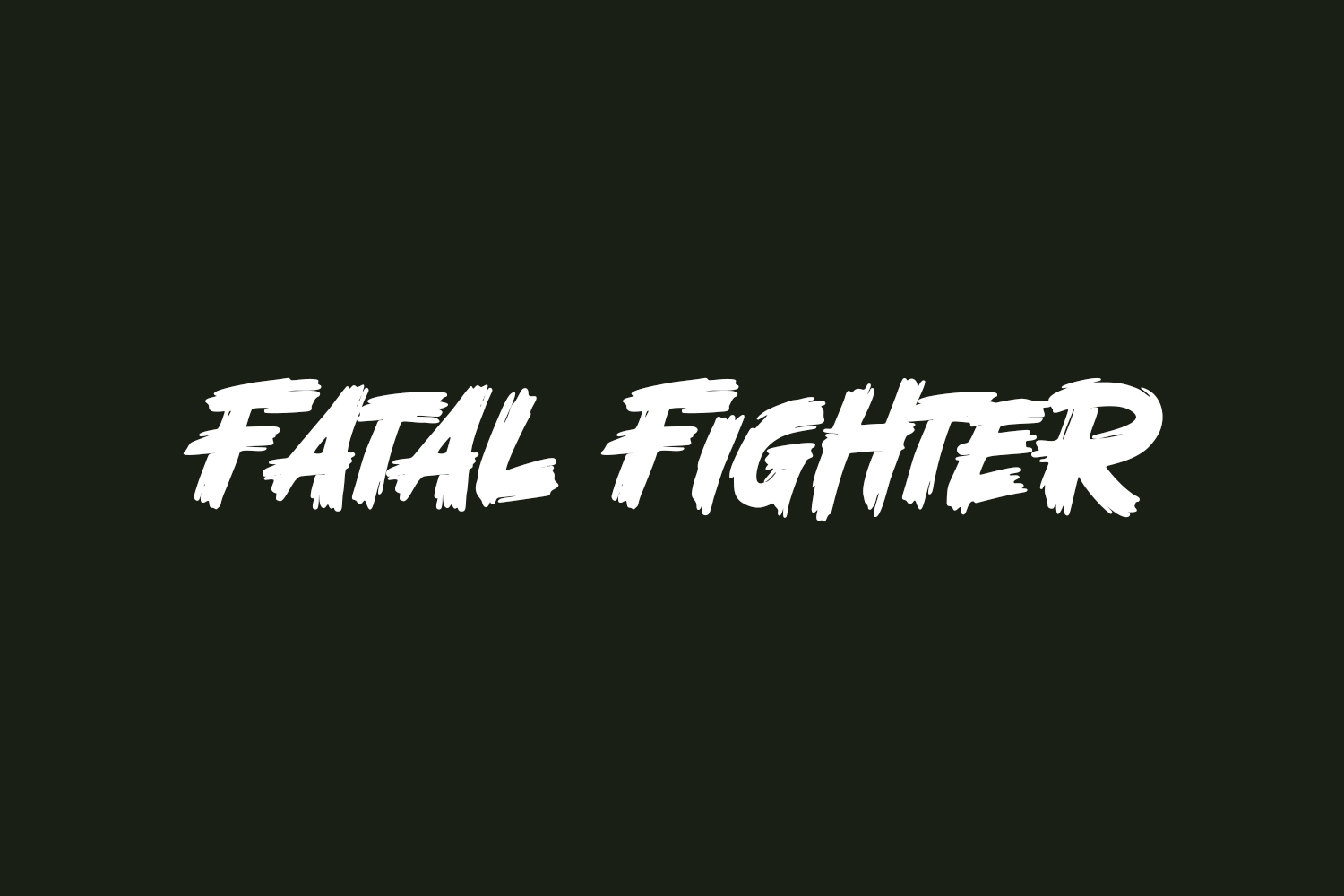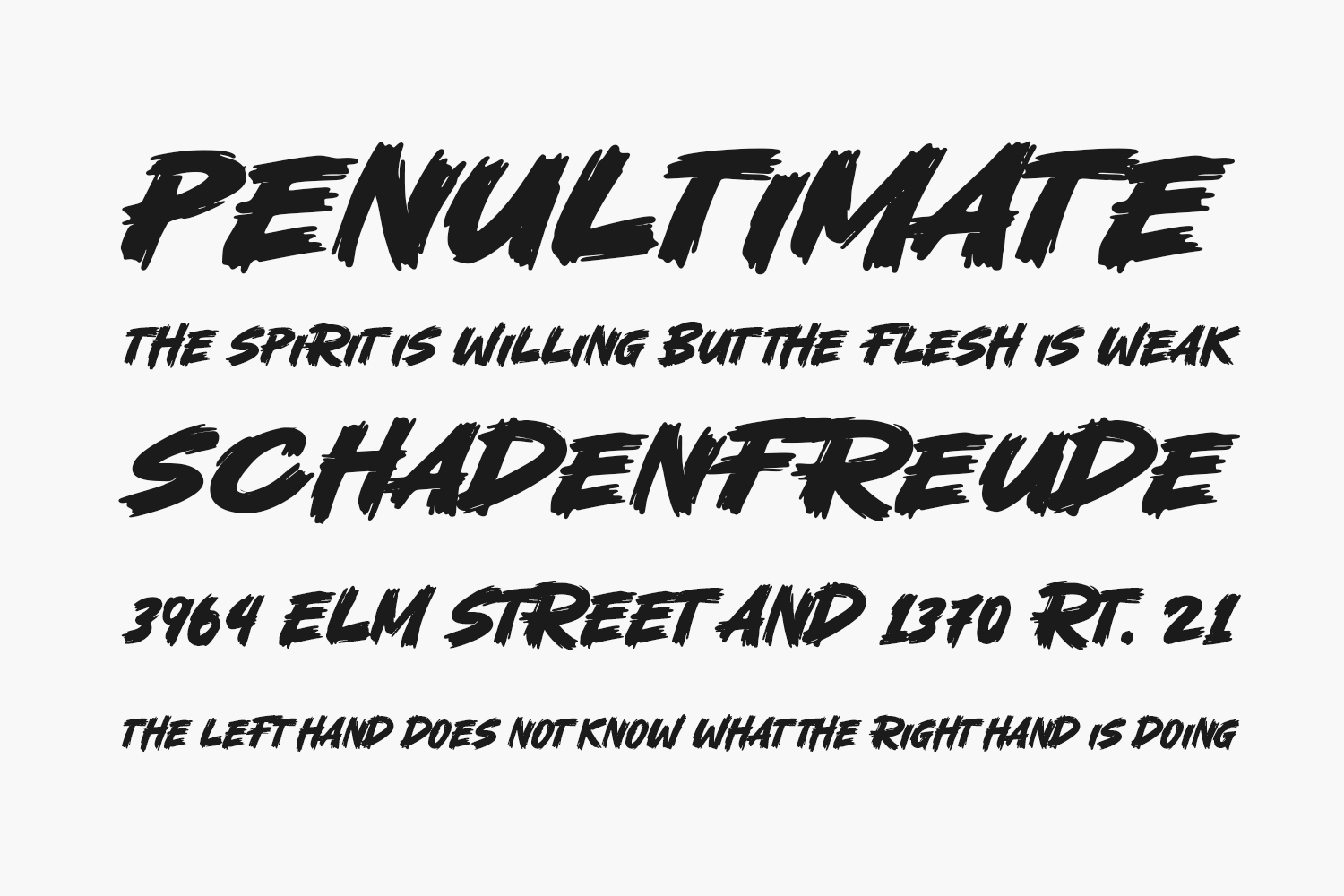
Fatal Fighter Free Font is a contemporary and dynamic brush font ideal for a variety of design projects, including posters, logos, magazines, book covers, banners, and more! Acquire this unique handwritten font to enhance your designs and infuse them with charm. Its versatility allows it to seamlessly integrate into a wide array of creative endeavors, amplifying their visual impact and making them truly eye-catching. Fatal Fighter Free Font is free for personal use only. Please purchase the full version for commercial use.